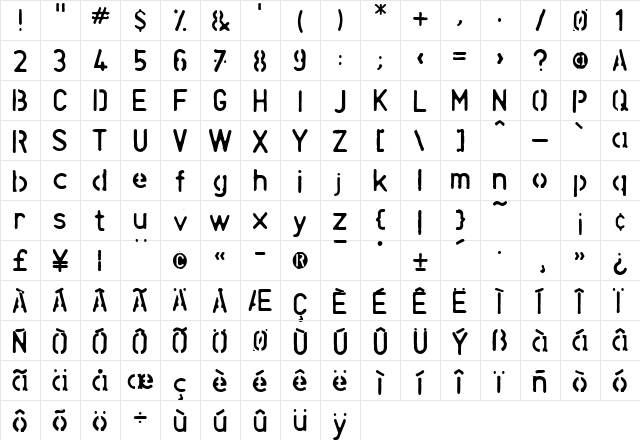
Space Junk Regular Free Font
Space Junk Regular
Design Context for Space Junk
Space Junk is a composed and adaptable typeface that performs quietly and consistently across a wide range of design contexts.